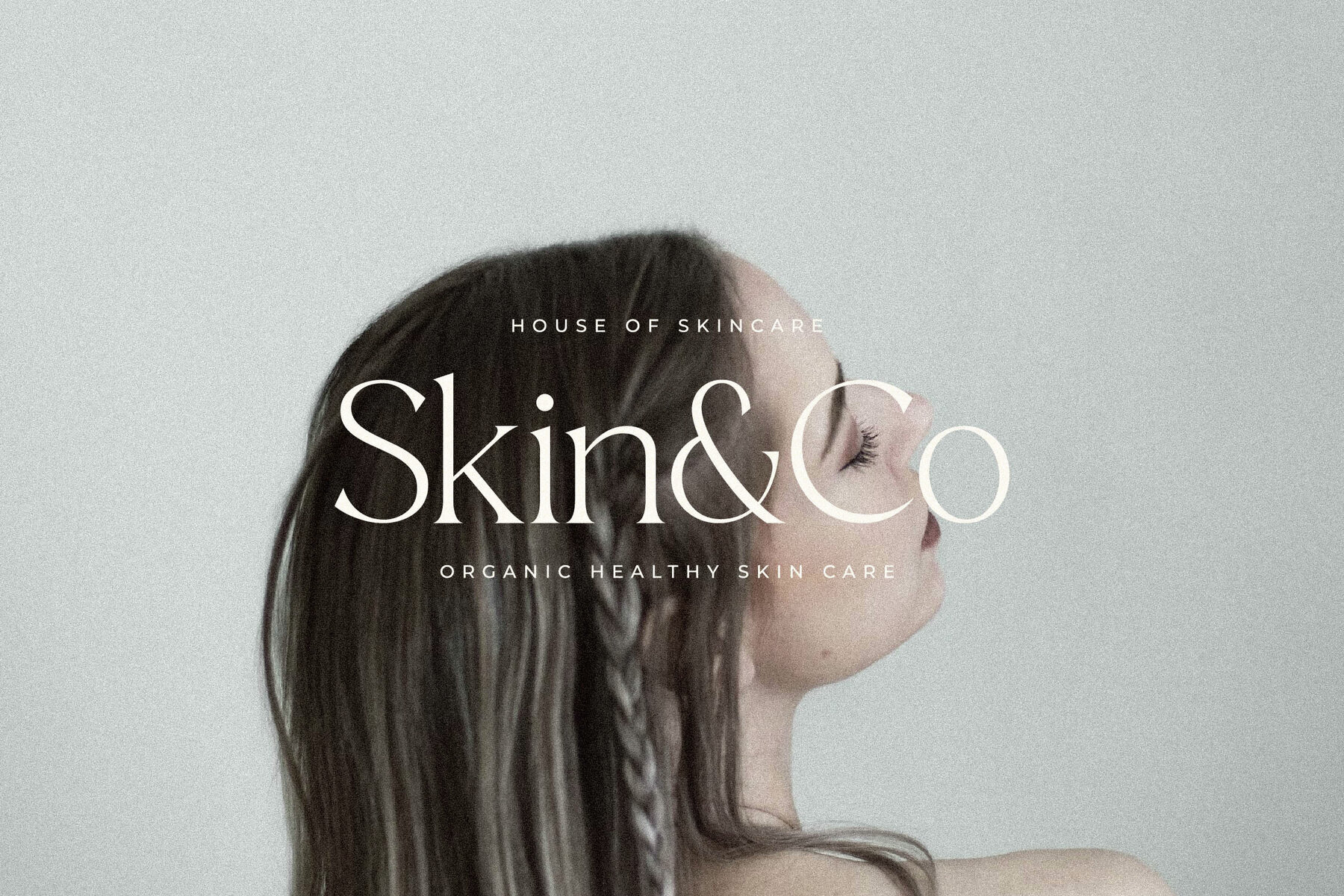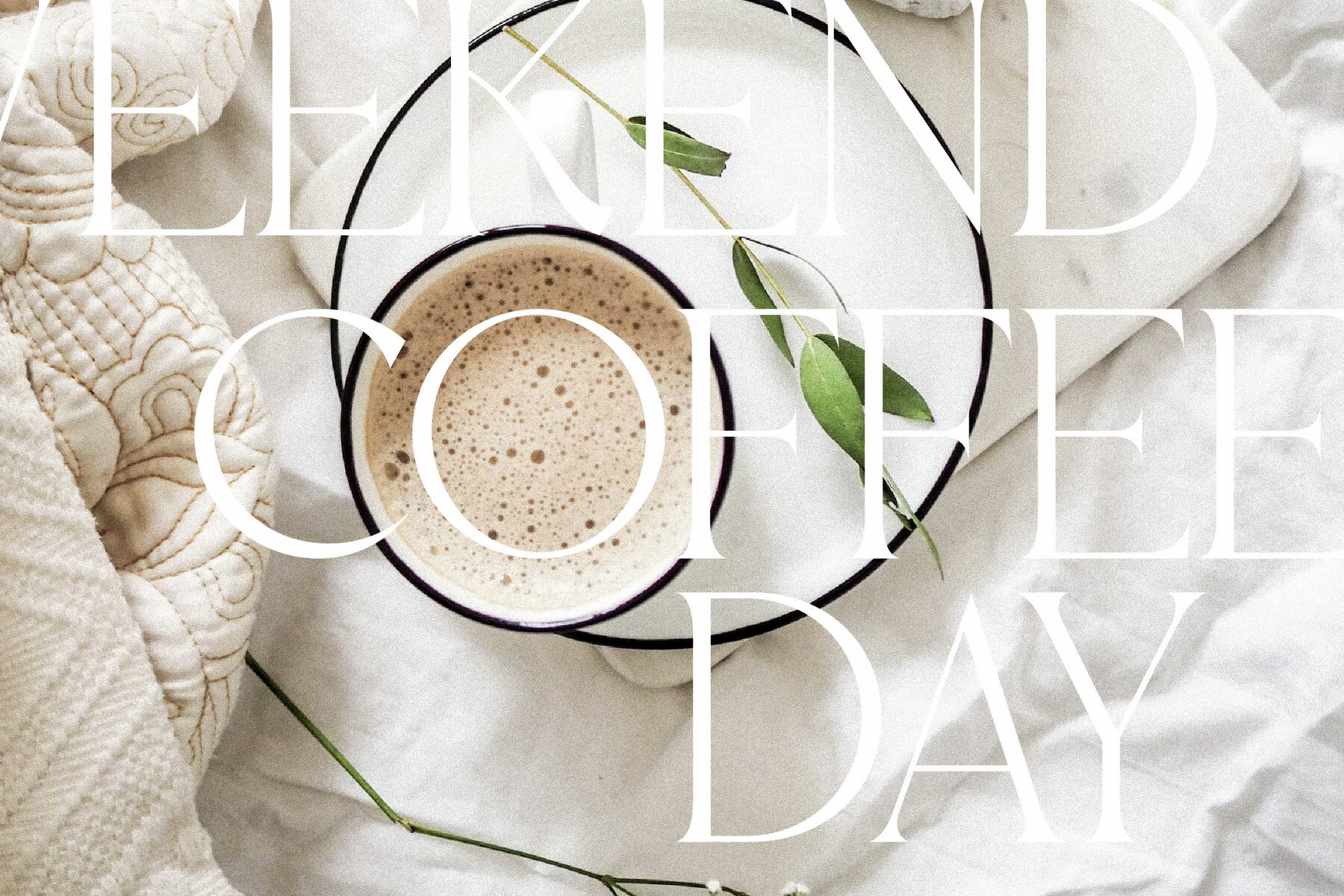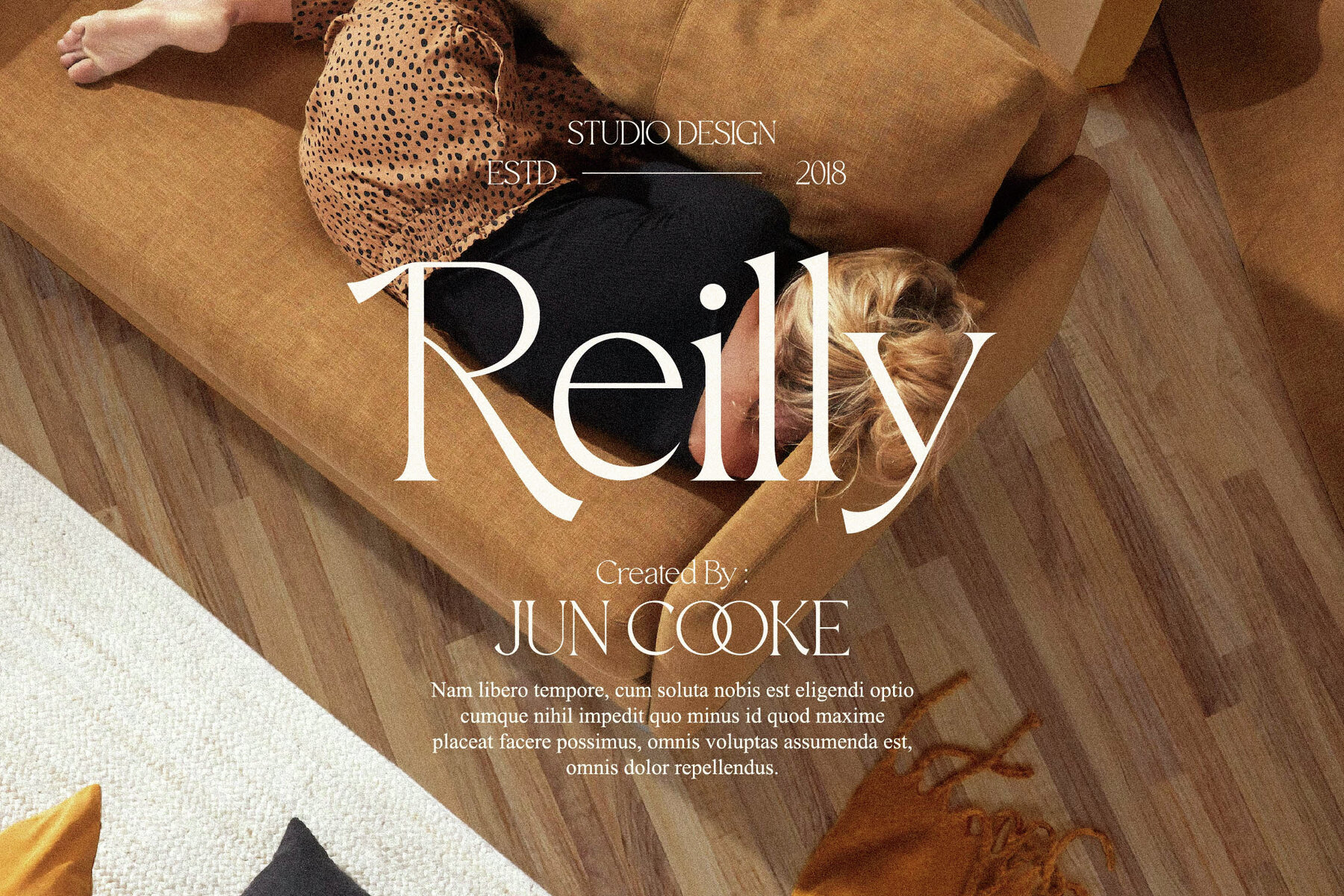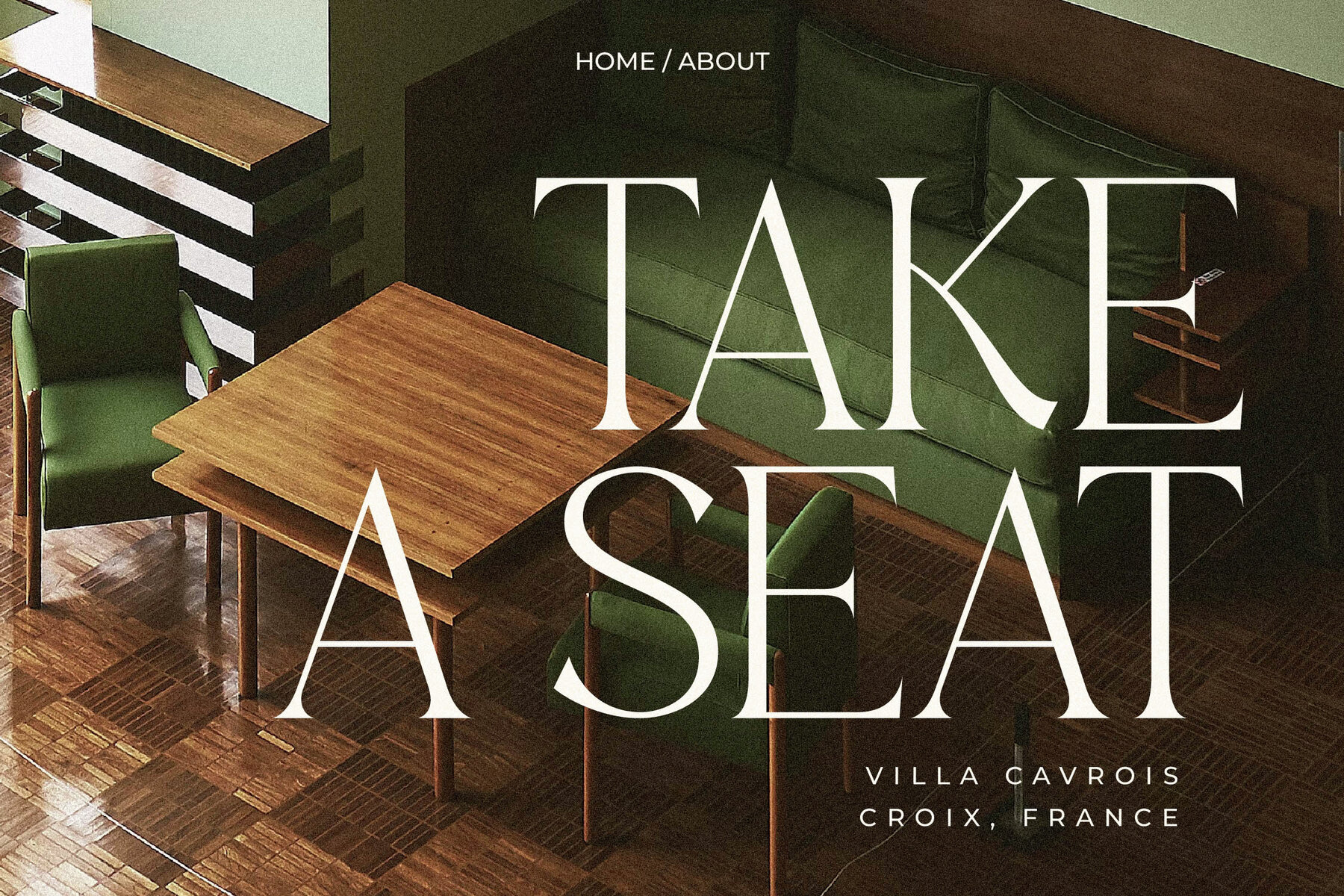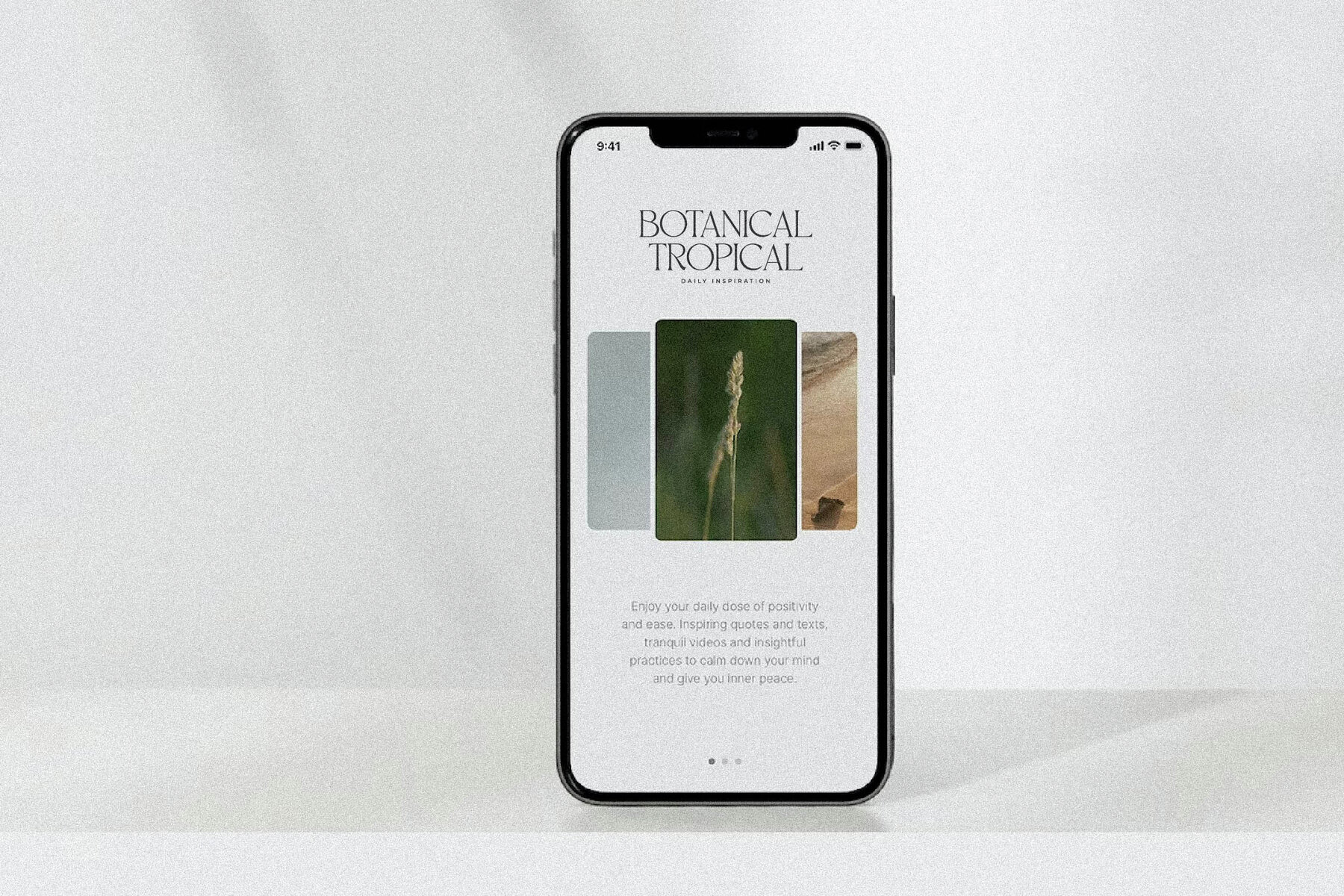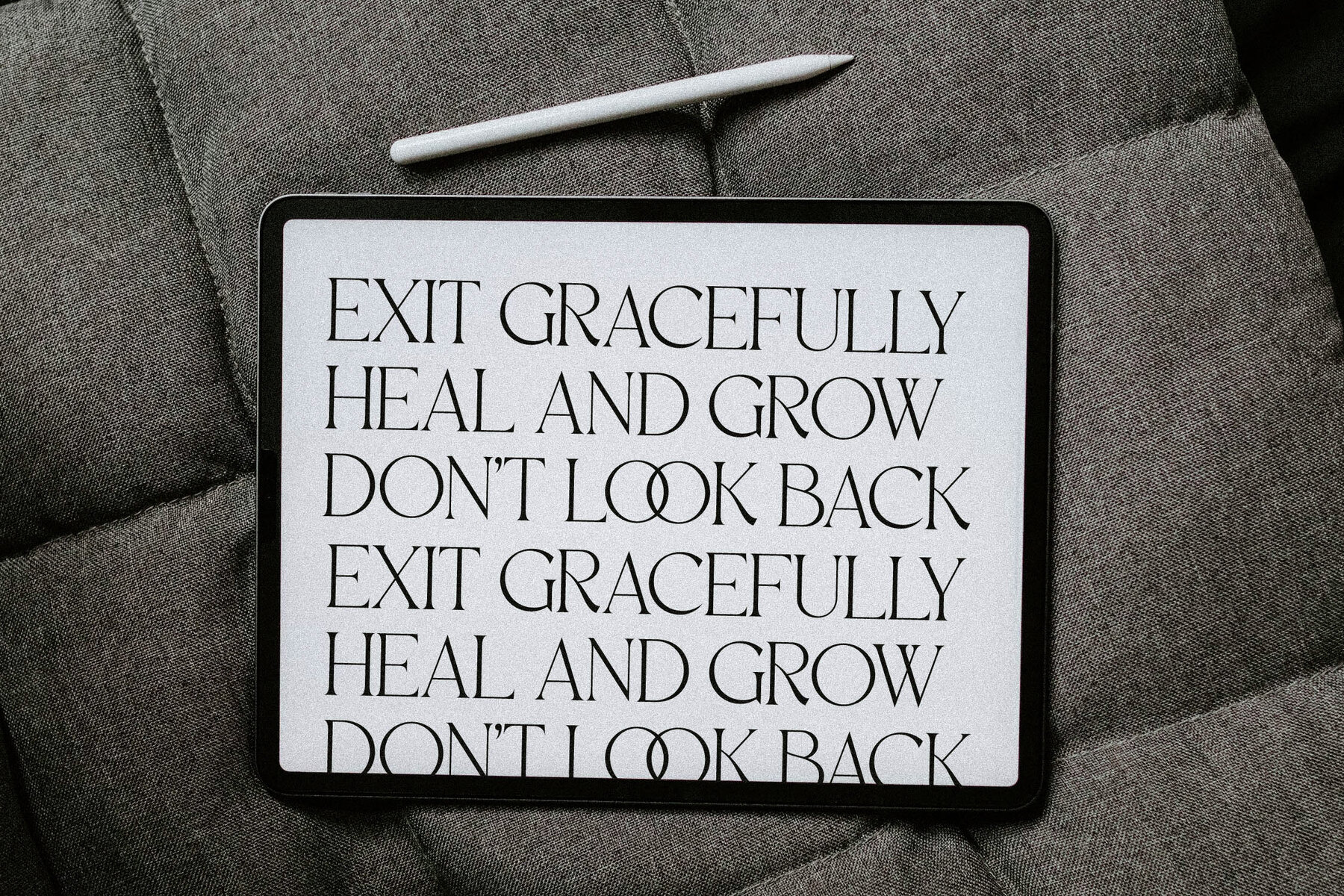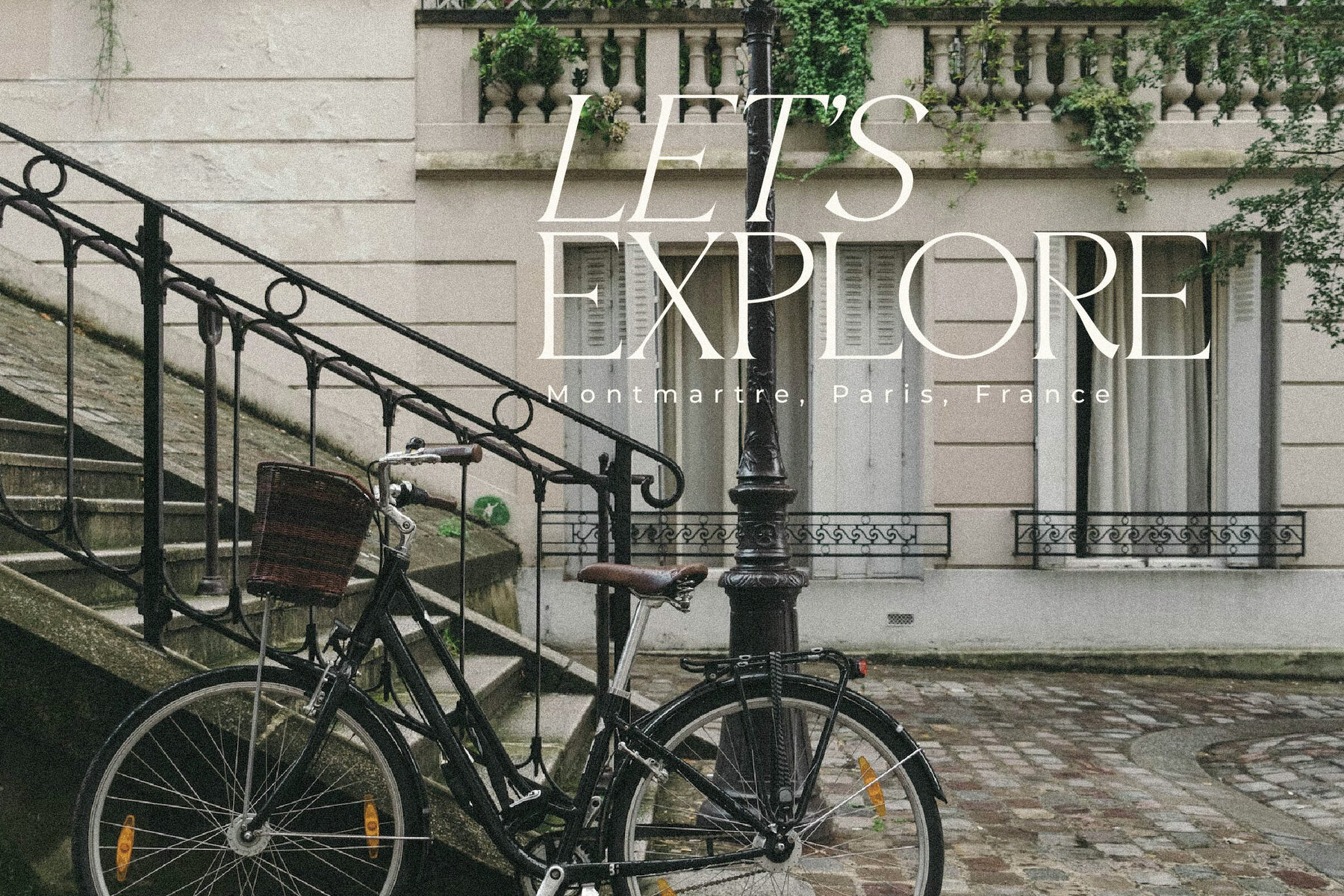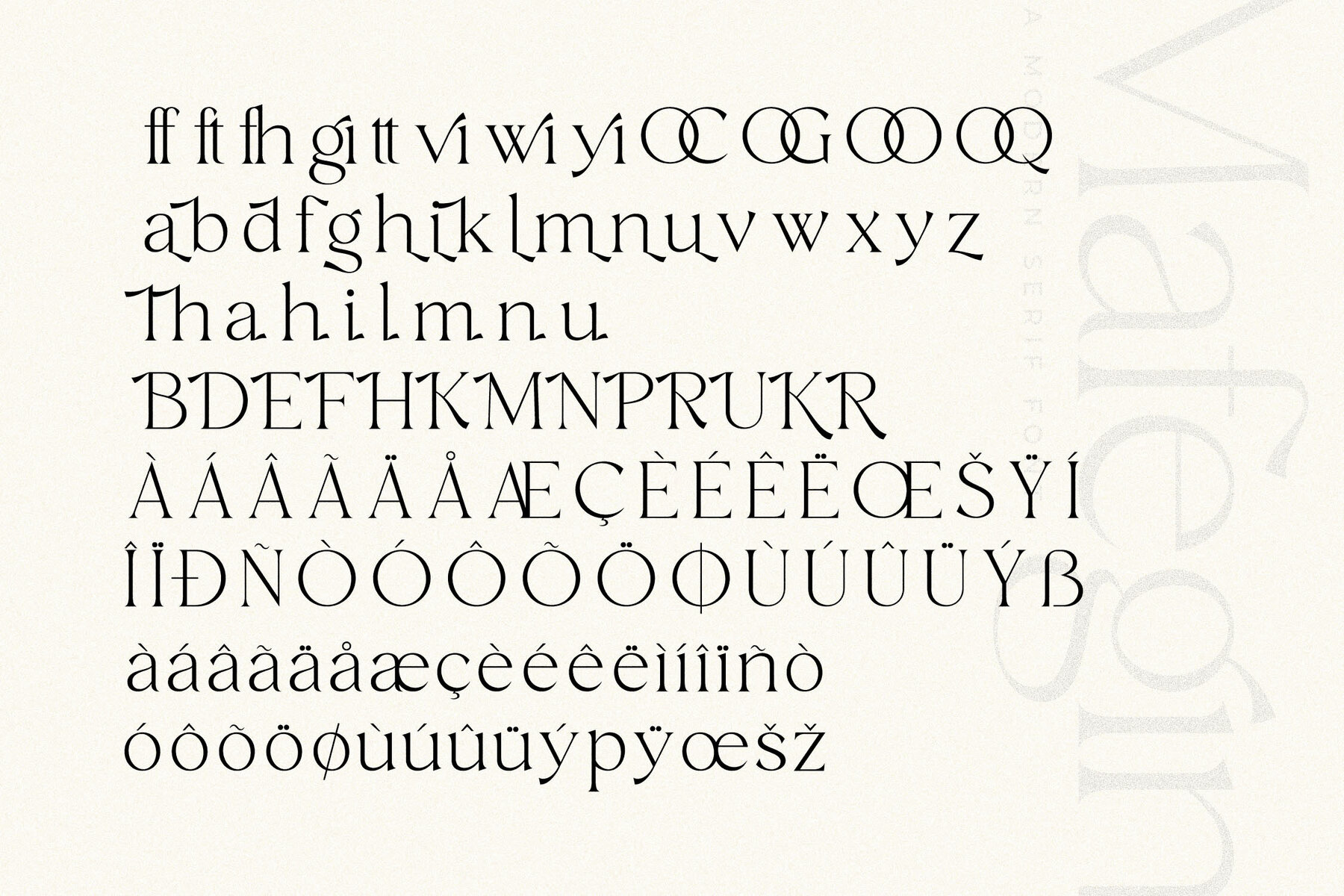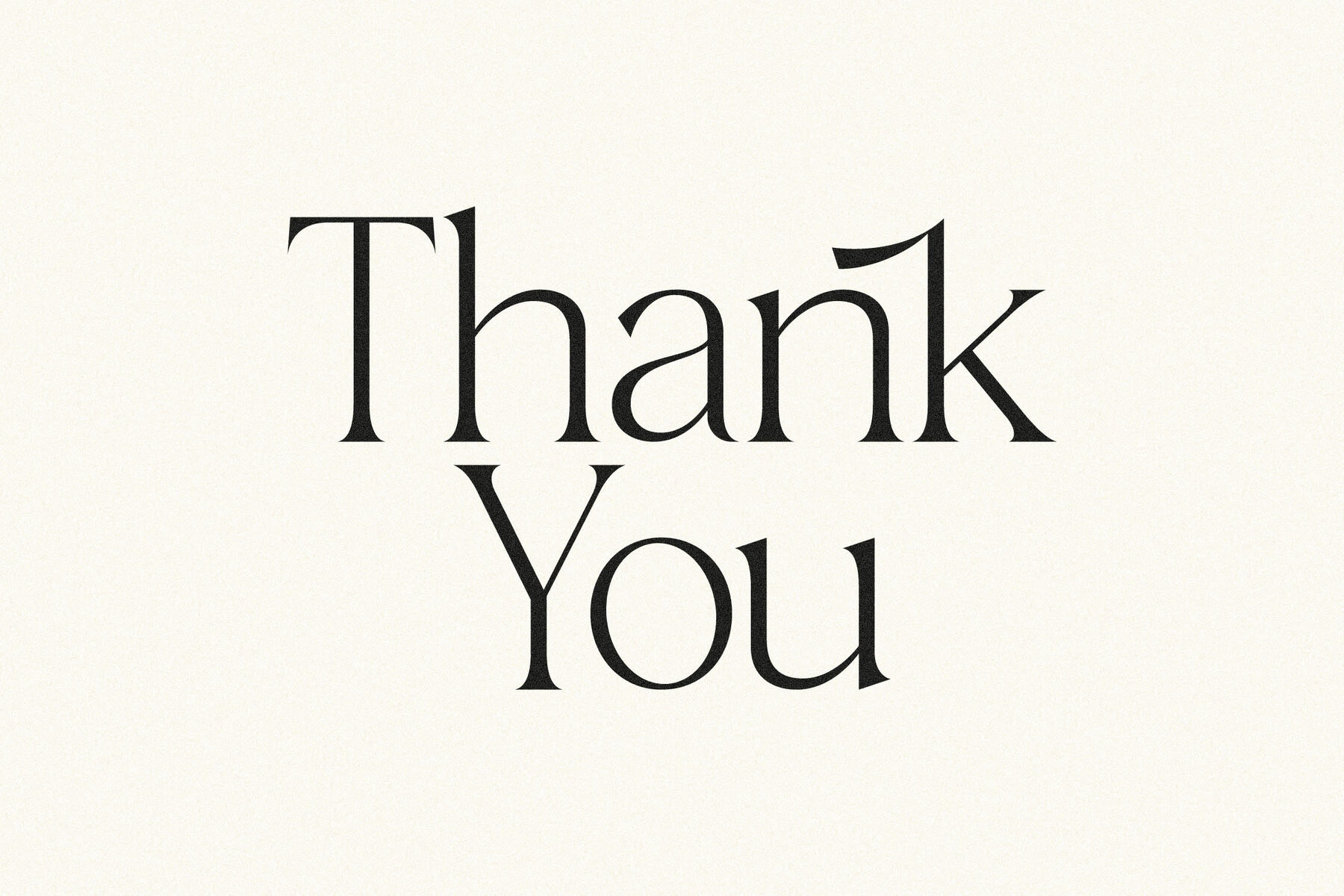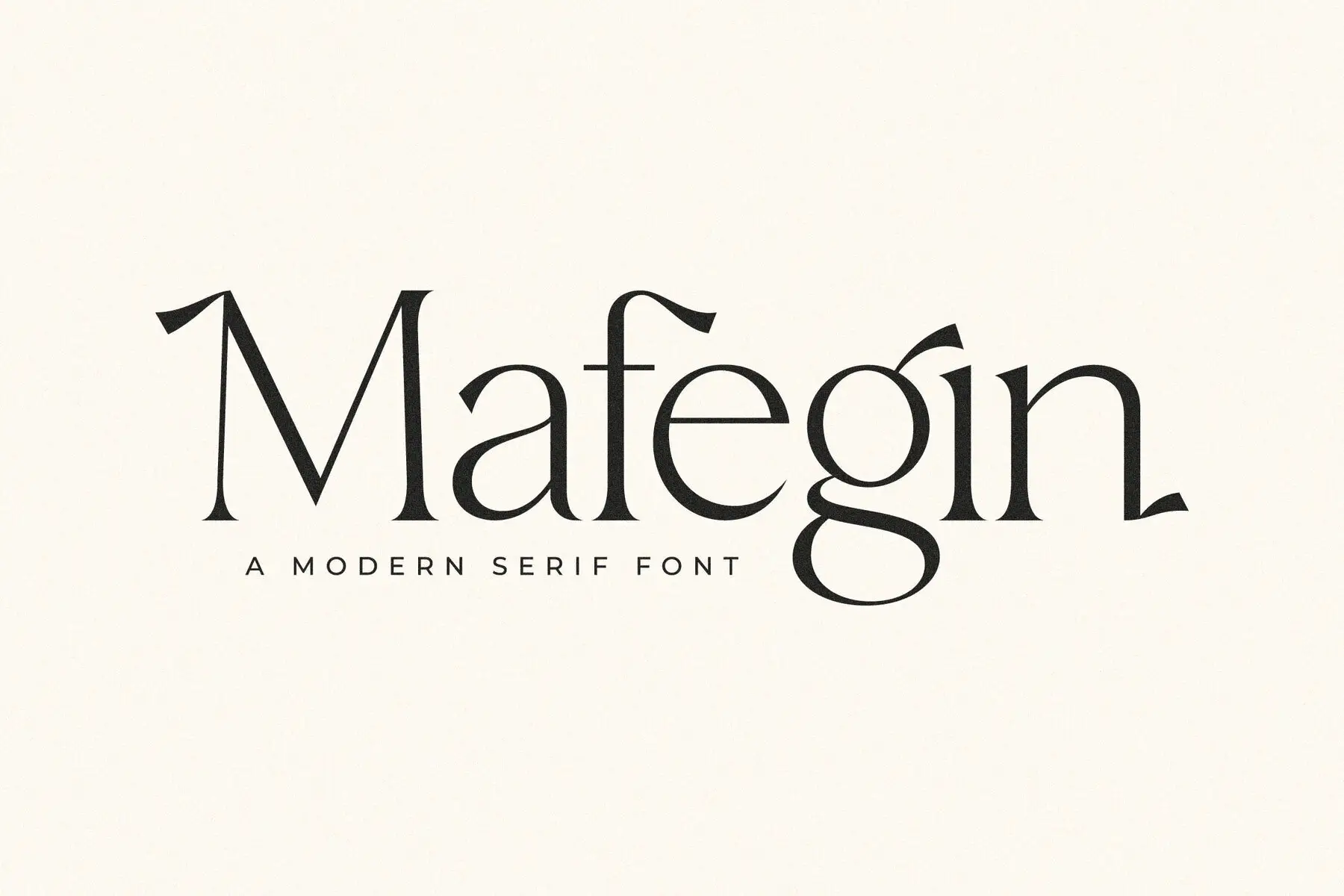
Mafegin Font
Mafegin by Storytype Studio is a unique serif typeface that blends classic elegance with a modern vibe. Its distinct style makes it an exceptional choice for crafting elegant, luxurious logos, or captivating book and movie titles. Suitable for fashion brands and editorial design, Mafegin adds sophistication to magazines, clothing brands, and more.Mafegin Typeface: A Versatile Classic